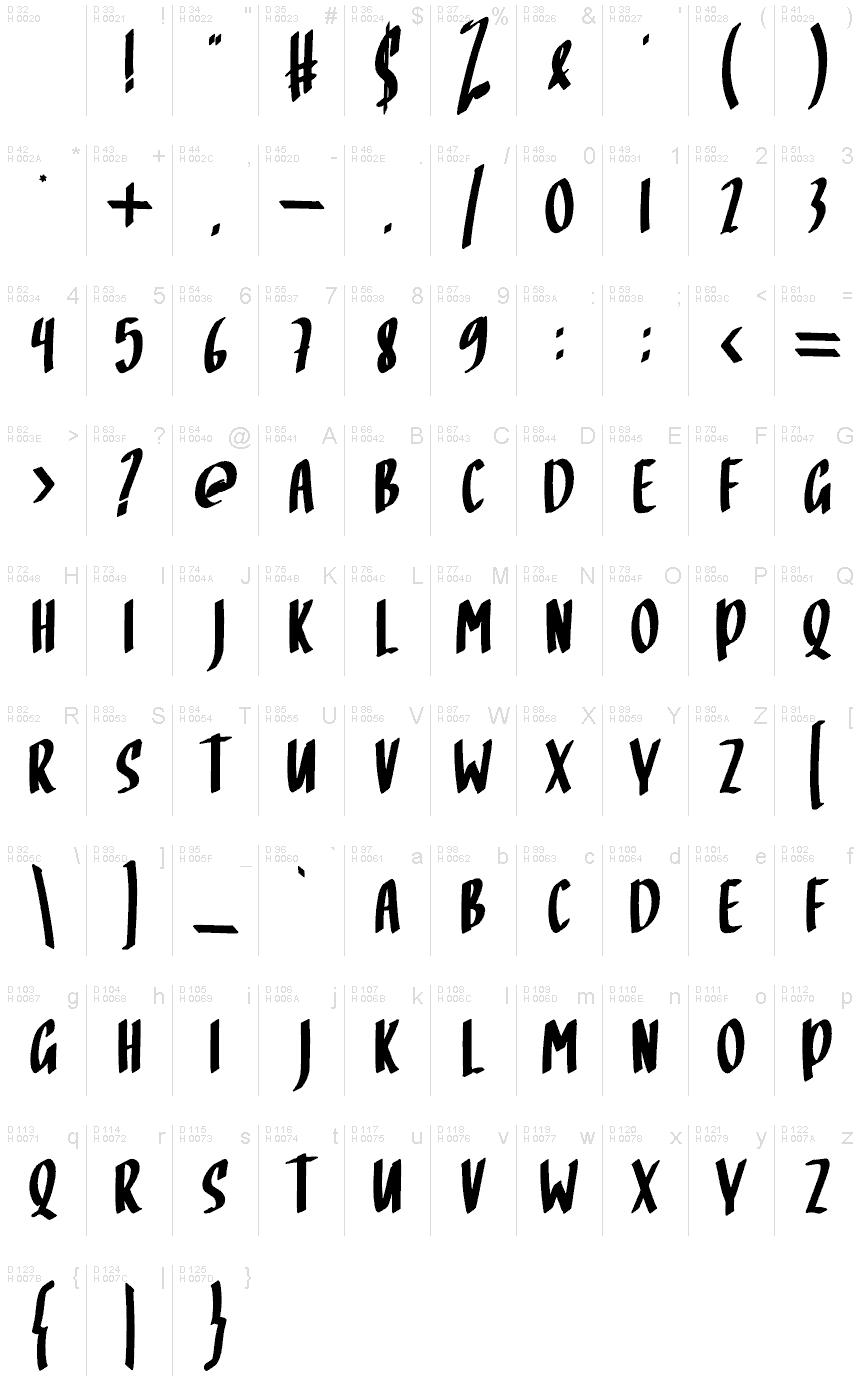
Mukhair
Mukhair font is a stunning brush typeface from Skiiller Studio. The letters carry an impressive energetic vibe, presenting fine options to take advantage of in expressive designs. Mukhair has a rather bold appearance with condensed width, bringing balance and harmony to compositions. The casual vibe it conveys appears clearly thanks to the modern letter design.
This free brush font can be extended across projects of different categories in the fashion sector or others. Lightbox typography, product package design, poster designs, apparel print designs like jackets and t-shirts are possible realization options. Additionally, you can let Mukhair add beauty to your event flyers and invitation cards!